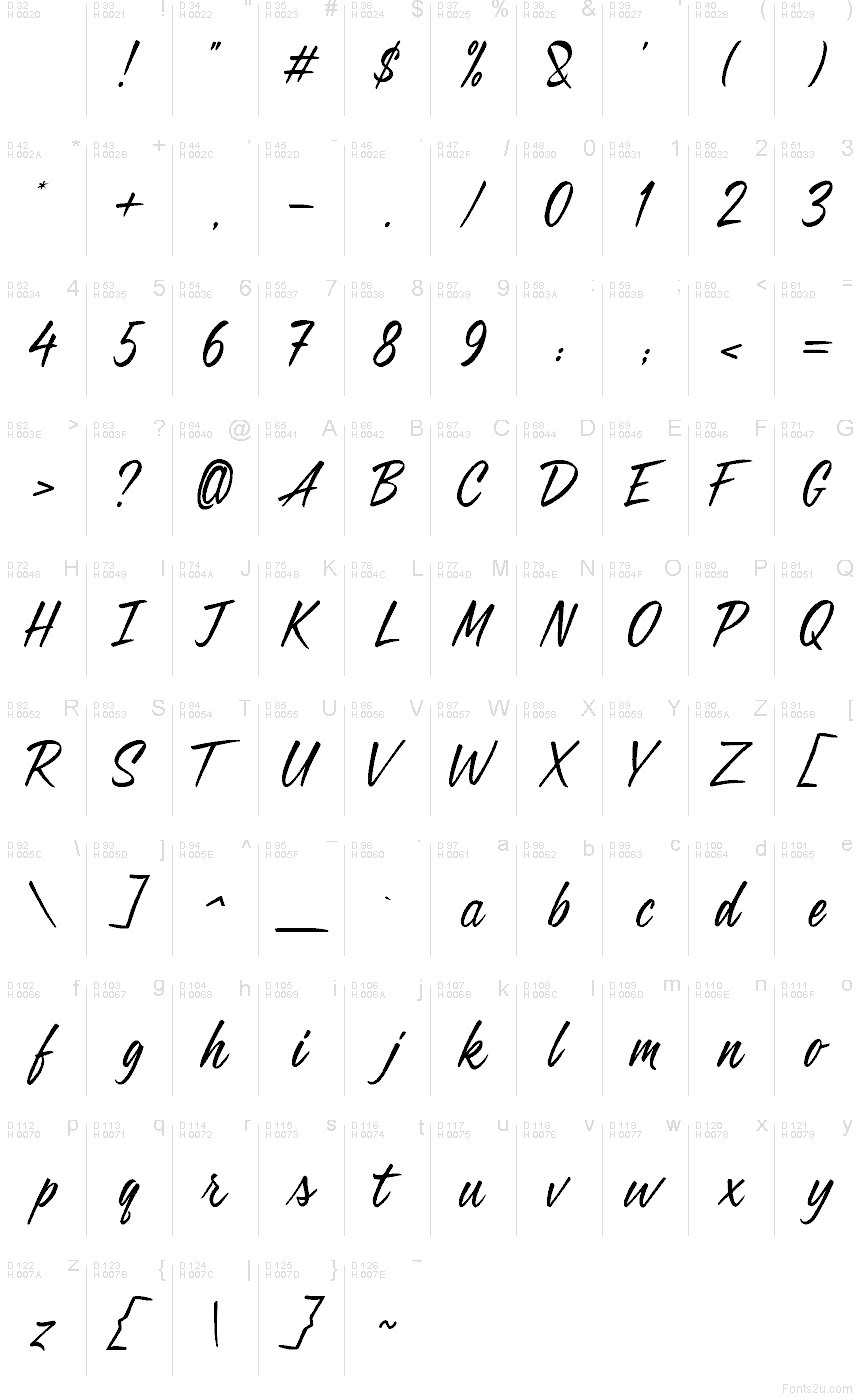
Celestial Silence
Celestial Silence font by BlackFridayFont FMF is a free handwritten script typeface that balances romance with clear, easy reading. Long, flowing strokes connect smoothly from letter to letter, while the steady weight and gentle slant keep words looking polished instead of fussy. It feels like quick, confident pen work—ink that dries in one sweep—so your designs look personal and refined rather than overly ornate.
Using Celestial Silence, you can bring a warm, handwritten touch to wedding invitations, save-the-date cards, product packaging, social media quotes, logos, and personal stationery. Its consistent rhythm holds up well at medium to large sizes, letting curves stay crisp on screen and in print. This free font pairs beautifully with a clean sans serif in smaller text, letting the script take the spotlight in headings and signatures.